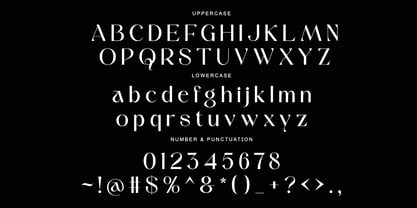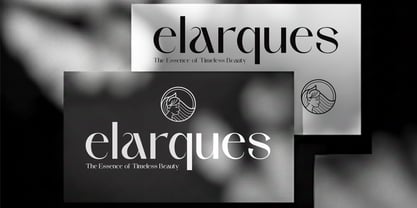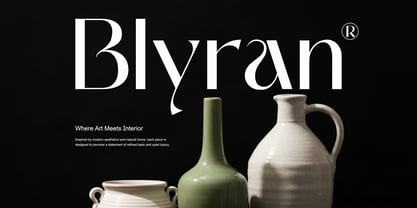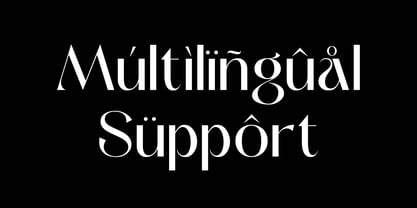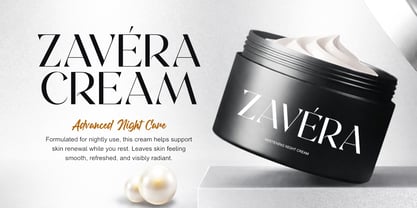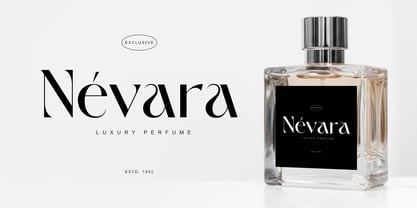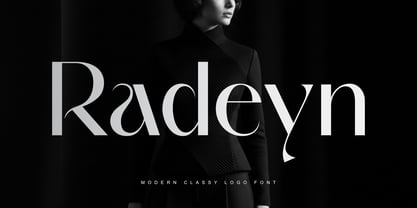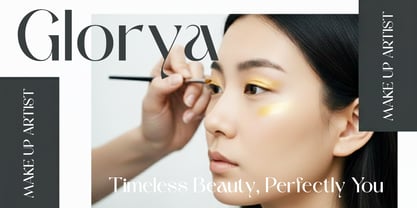
Radeyn
La familia tipográfica Radeyn fue diseñada por Saiful Anwar y publicada por Sealoung. Radeyn contiene 1 estilos. Más información sobre esta familia
Radeyn is a modern classy logo font designed to bring elegance, luxury, and a contemporary feel to premium branding projects. Created especially for fashion, beauty, lifestyle, and high-end brands, this font combines clean shapes with refined details to deliver a timeless yet modern aesthetic. This font is an ideal solution for designers, creatives, and product owners who want their designs to look more exclusive, modern, and sophisticated without losing simplicity and readability.
Radeyn